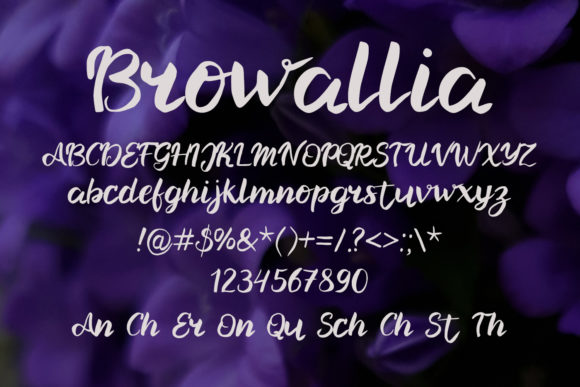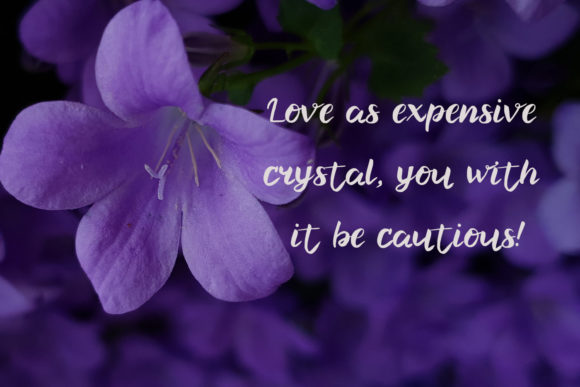
Unveiling the Magic of Browallia Font
Imagine you’re sitting at your desk, surrounded by scattered papers, colorful pens, and a blank notebook. The perfect wedding invitation is just a stroke away, but the words refuse to flow. Then, you stumble upon the perfect font – one that exudes romance, elegance, and a touch of whimsy. This is where the Browallia Font comes in, a beautiful, round lettered handwritten font that will make your design dreams come true.
Browallia Font is the perfect addition to any designer’s toolkit, especially when it comes to crafting wedding invitations, cards, and other designs that require a personal touch. Its dainty and joyful feel is sure to capture the hearts of your audience, making it a valuable asset for any designer looking to create truly unique and memorable designs.
- Unique Characteristics: Browallia Font features a unique blend of elegance and playfulness, making it suitable for various design projects, from corporate identities to creative campaigns.
Browallia Font Review
I recently had the chance to work with the Browallia font, and I must say, it’s a unique and intriguing typeface. ✨ One of the things I like about it is its elegant and refined feel. It’s perfect for high-end branding, luxury products, or any project that demands sophistication.
The Browallia font also has a wide range of weights and styles, making it highly versatile and adaptable to various design needs. ✨ Additionally, its cursive connections and refined letterforms create a beautiful and cohesive visual flow.
- ⚠️ The Browallia font may not be ideal for body text or large blocks of text due to its ornate and decorative nature. It can be overwhelming and difficult to read in long passages.
Overall, I think the Browallia font is a beautiful and elegant choice for specific design projects. While it may have some limitations, it’s perfect for projects that require a touch of sophistication and refinement. With the right use, the Browallia font can elevate your design and make it stand out.
The Browallia Font is a versatile, elegant font that can be used for a variety of purposes, including:
– Business cards and marketing materials
– Book covers and publishing materials
– Personal projects and creative endeavors